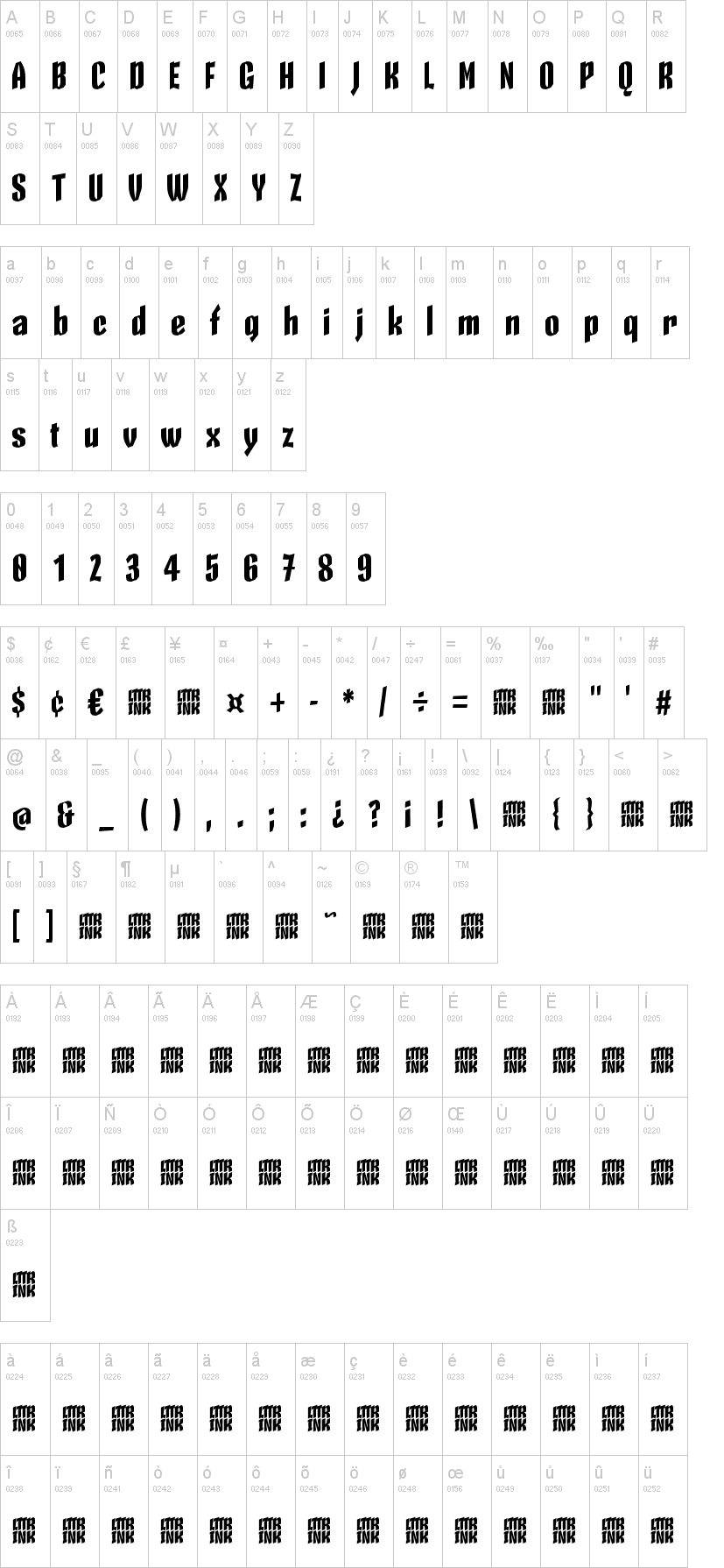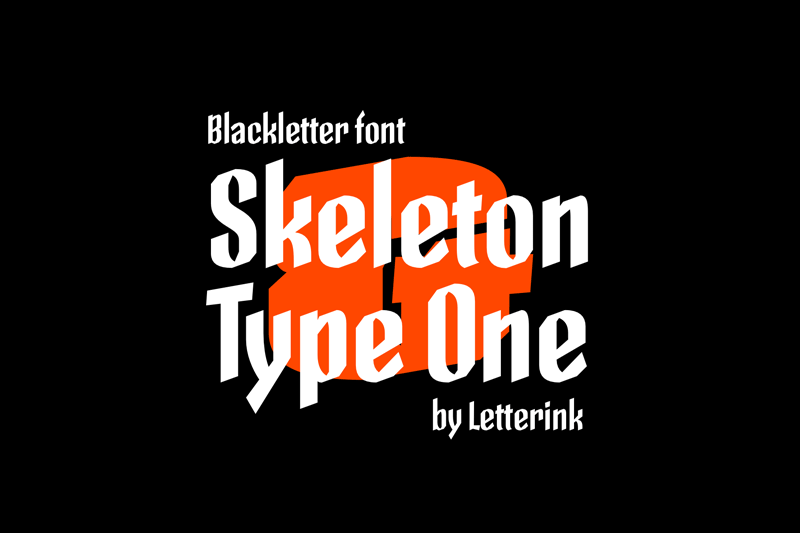
Skeleton Type One Poster
Skeleton type one is a fractured grotesque experiment.
Good choice when bored with fraktur � try this one.
By so-called technique skeleton type design.